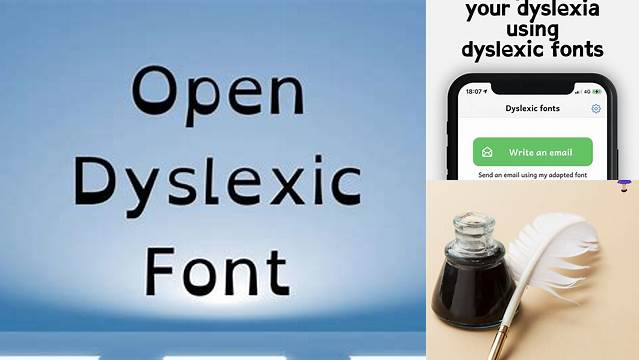
Hey guys! If you're here, chances are you or someone you know is looking for a way to make reading on an iPhone easier, especially if dyslexia is part of the picture. Well, you're in luck! This article dives deep into the world of dyslexia fonts and how to snag one for your iPhone without spending a dime. We'll cover everything from what makes a font dyslexia-friendly to how to download and use one. Let's get started, shall we?
What Makes a Font Dyslexia-Friendly?
Alright, so what exactly is it about certain fonts that make them easier to read for people with dyslexia? It all boils down to a few key design principles. Traditional fonts, while aesthetically pleasing, often have letter shapes that can look very similar, which can cause confusion for those with dyslexia. This can lead to letters being flipped or reversed in the reader's mind, like 'b' and 'd' or 'p' and 'q'. Dyslexia-friendly fonts are designed to minimize these visual confusions. One of the primary characteristics is a heavier base, which helps anchor the letters on the page. This simple change significantly reduces the chances of the reader unintentionally flipping them around. Furthermore, many dyslexia fonts feature unique letter shapes. This means each letter has a distinct appearance. For instance, the lowercase 'a' often has a single-story design (like a handwritten 'a') rather than a double-story 'a' that looks like a circle with a vertical line. This makes each letter immediately identifiable, reducing the cognitive load on the brain and decreasing the time spent figuring out what each individual word is. The space between the letters and words is also critical. Dyslexia-friendly fonts generally have increased spacing, which gives the eyes more room to breathe and prevents words from running together. This is crucial for people who often have trouble with crowded text. The unique character of the fonts, the spacing, and the style all make a huge difference for those with reading difficulties. The goal is to improve reading fluency and comprehension, making reading a less frustrating experience. It's not just about the shape of the letters; it's about creating a more accessible and user-friendly reading environment that anyone can enjoy. Keep in mind that what works for one person may not work for another, so finding the right font is a personal journey.
Common Features of Dyslexia Fonts
- Unique Letter Shapes: Distinct forms for each letter to avoid confusion.
- Heavier Base: Anchors letters on the page, preventing visual flipping.
- Increased Spacing: More space between letters and words for better readability.
- Unslanted Characters: Avoids the illusion of letters tilting or moving.
Additional iPhone Accessibility Features
- Bold Text: Makes text more pronounced.
- Reduce Transparency: Reduces background transparency for better text clarity.
- Increase Contrast: Enhances the contrast between text and background.
- Zoom: Magnifies the screen for easier reading.
- Guided Access: Locks the device to a single app for focus.
- Speak Screen/Selection: Reads text aloud.
Finding the Best Font for You
Finding the right dyslexia font is a personal journey. What works for one person might not work for another. Everyone's experience with dyslexia is unique, so it is essential to find a font that specifically meets your needs. Start by experimenting with different fonts. Download a few different options and use them across various apps and settings. Take notes on how each font feels. Does it make the text easier to read? Does it help you understand the text better? Pay attention to how the font affects your reading speed and comprehension. Some people find that a heavier, more structured font is best. Others may prefer a font with more space between letters. Then, consider the letter shapes and sizes. Some fonts have unique letter shapes that help distinguish similar letters, which can significantly improve reading fluency. Then, adjust the size and spacing. Even if you find a font you like, you may still need to adjust the size and spacing to achieve the optimal readability. You can usually do this in the iPhone's settings or in the settings of the app you're using. Next, test the fonts in different reading environments. Does the font work well in bright light? Does it work well in low light? Also, consider using different colors to minimize eye strain. Last, don't be afraid to mix and match. You can use one font for headings and another font for body text. The most important thing is to find a font combination that supports your reading and learning style.
- Experimentation: Try out different fonts to see what works best.
- Consideration of Preferences: Pay attention to how each font feels and affects your reading.